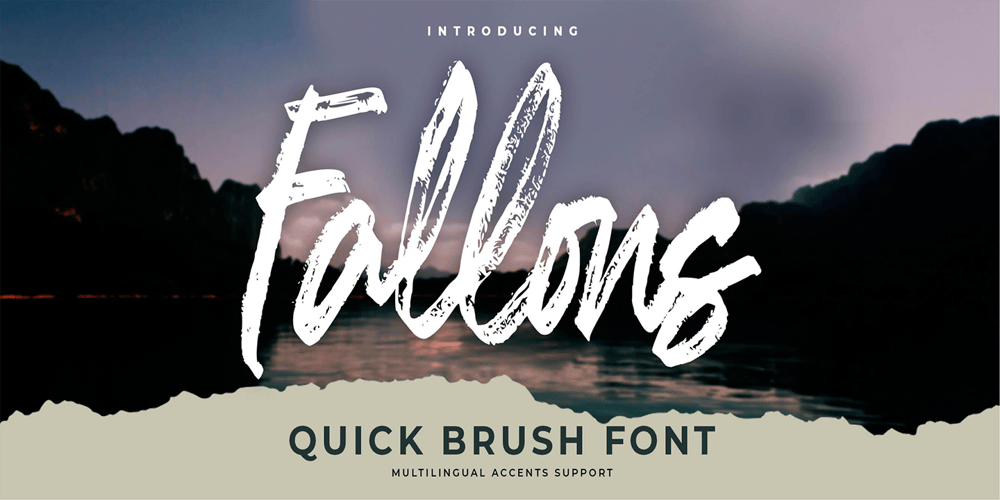
Fallons Font Family was designed by Abdul Malik Wisnu, Anang Fibriyanto and published by Gassstype. Fallons contains 1 styles and family package options. Hello Everyone, introduce our new product Font Fallons it is Quick Brush Font.This is a Textured Natural Style and classy style with a clear style and dramatic movement.This font Fallons is great for your next creative project such as logos, printed quotes, invitations, cards, product packaging, headers, Logotype, Letterhead, Poster, Design this font is great for your creative projects such as watermark on photography, and perfect for logos & branding, invitation,advertisements,product designs, stationery, wedding designs,and label.You can activate 32 Ligatures glyphs OpenType panel.